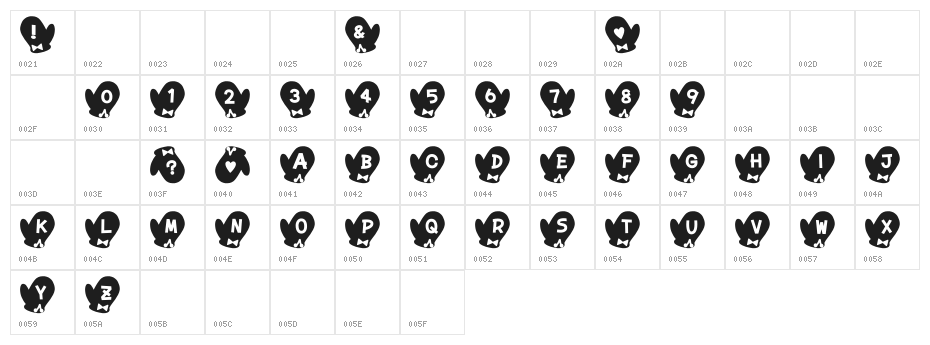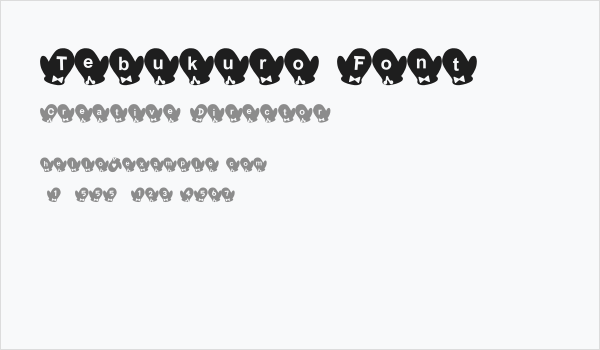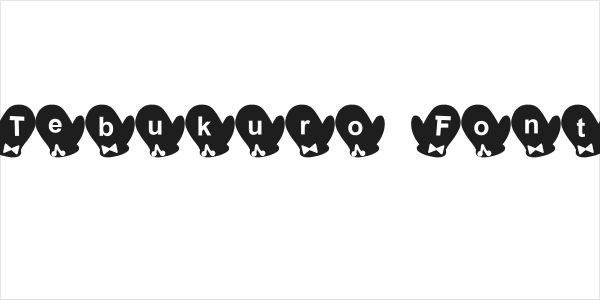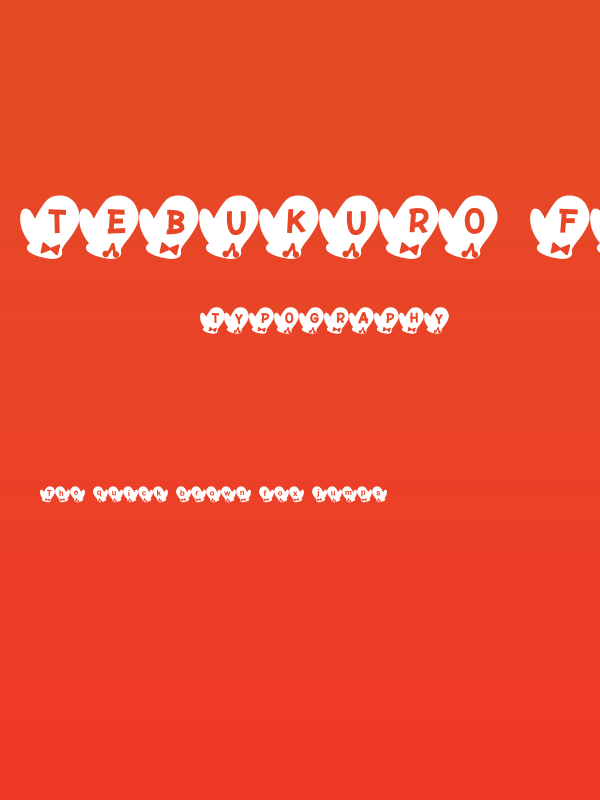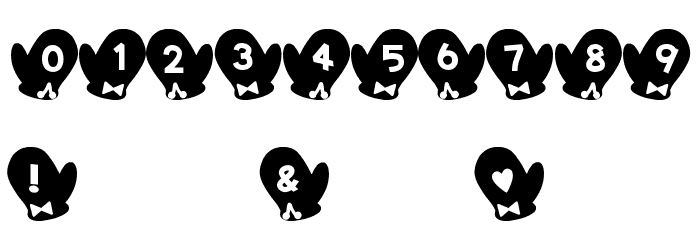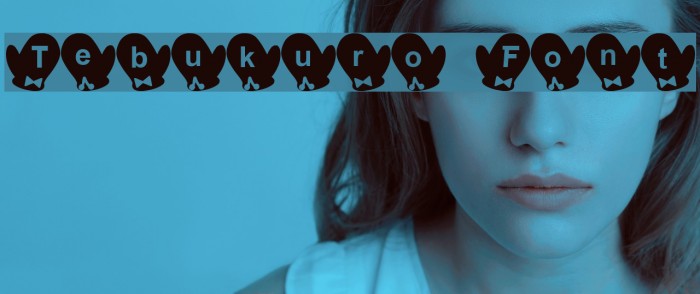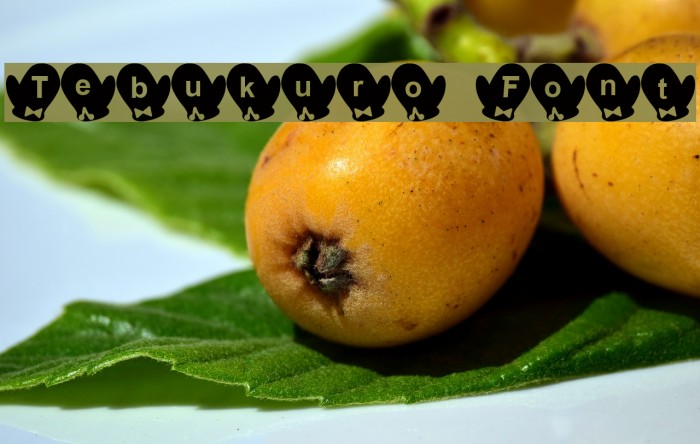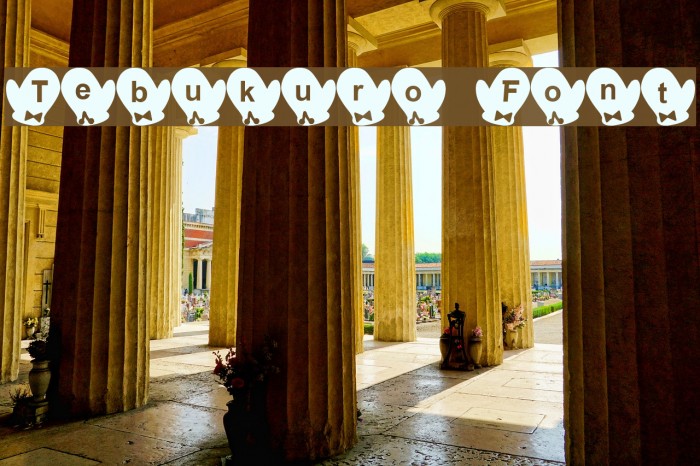
Tebukuro Font Font
| Gesamtstil | Whimsical, Playful |
| Anwendungsfall | Headlines, Logos, Decorative text |
| Vorgeschlagene Projekte | Ideal for children's books, holiday cards, playful branding, and creative posters. |